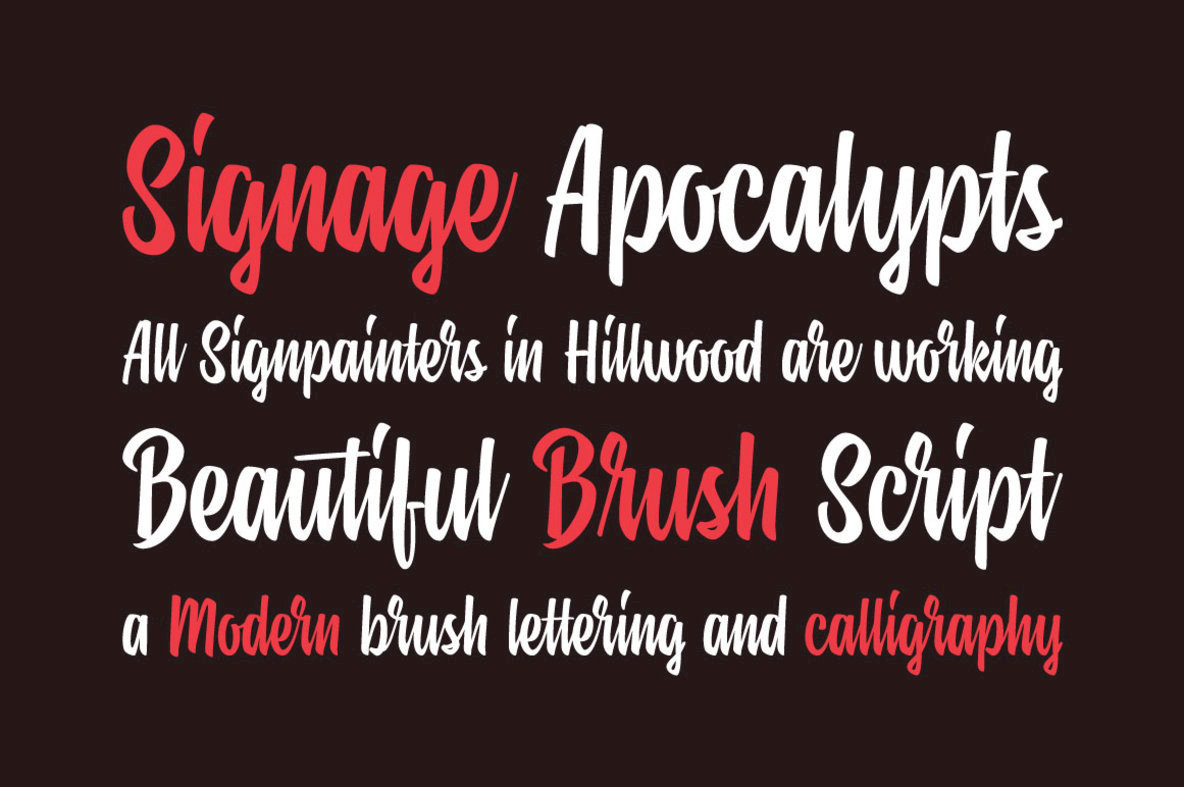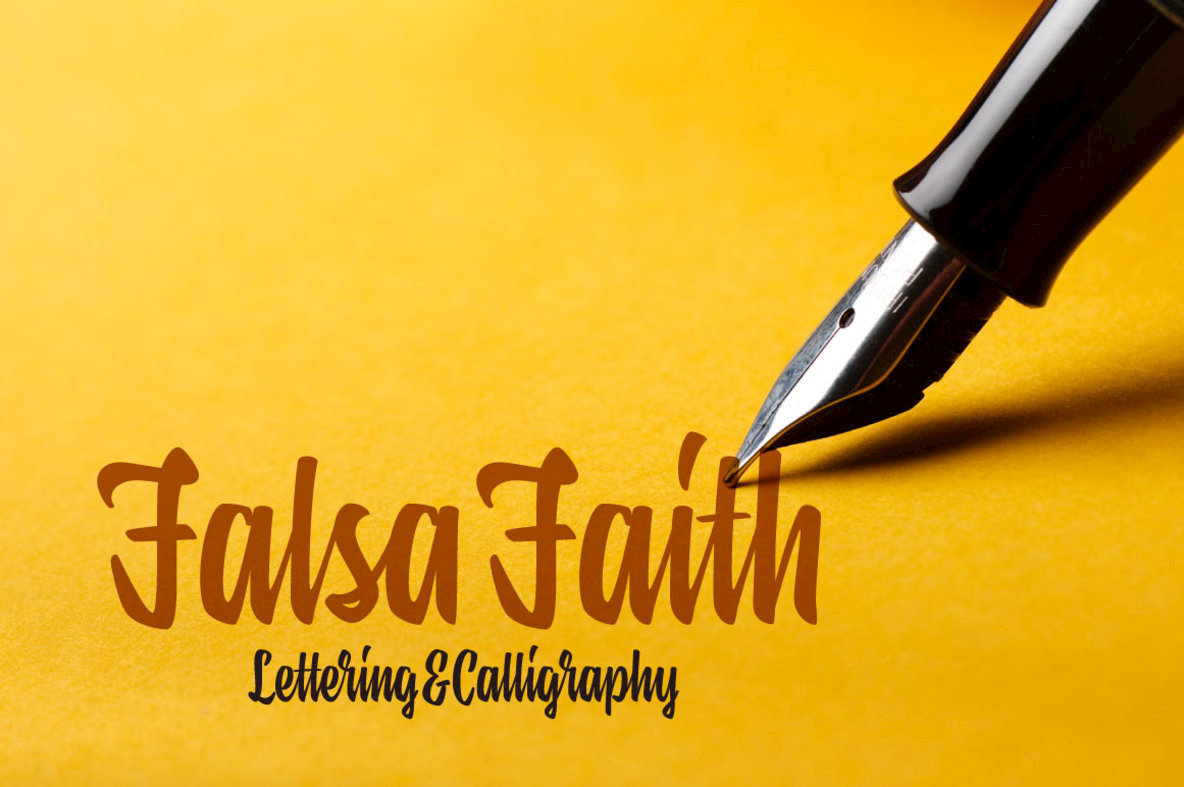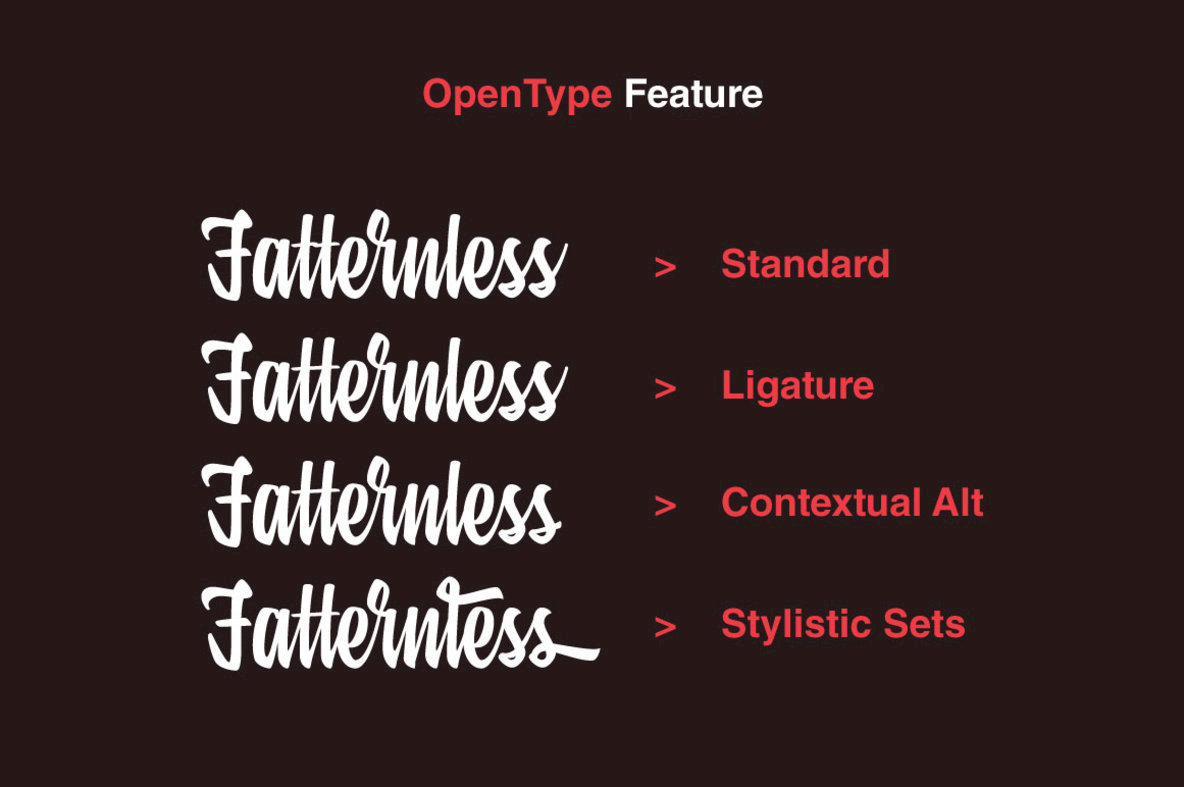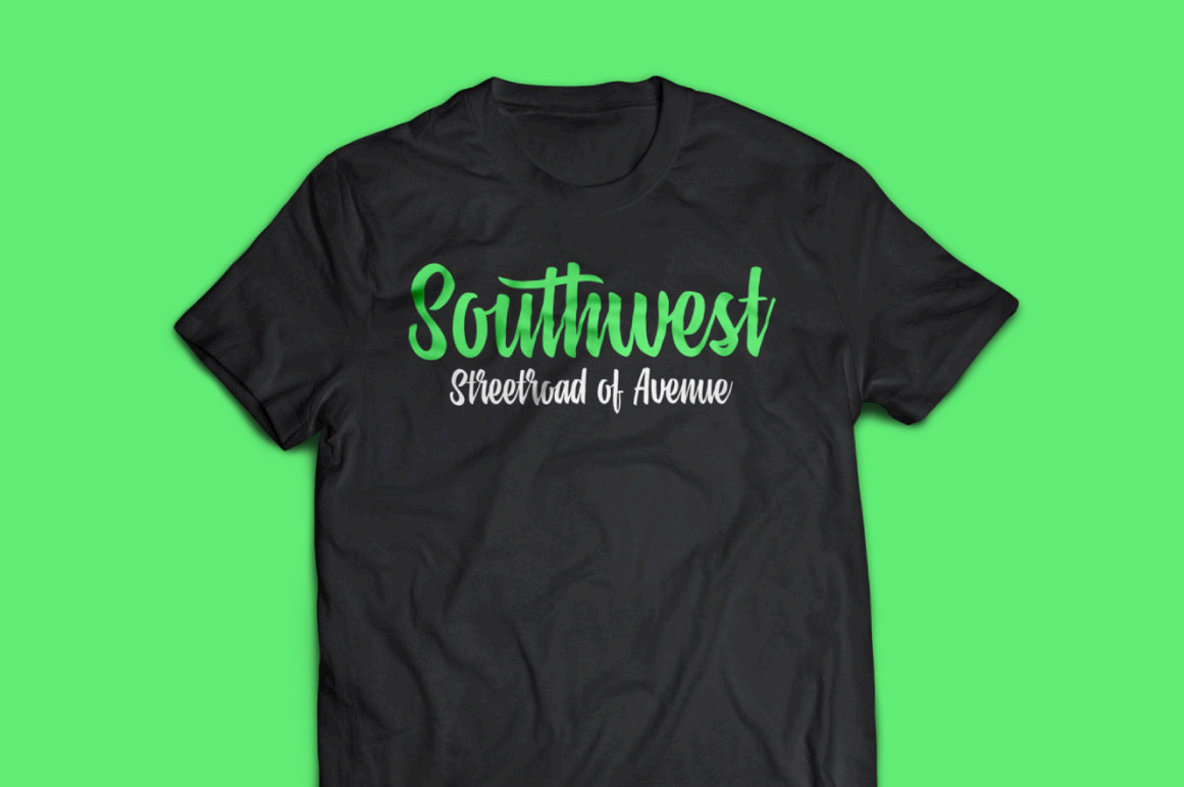
Hillwood Font
Hillwood
Hillwood is a contemporary brush script with perpendicular style. Hillwood built on a combination of high-speed brush lettering and natural balance of each letter. Suitable for urban design style whether it is for sign painting, brand, t-shirt, badge/insignia, etc.